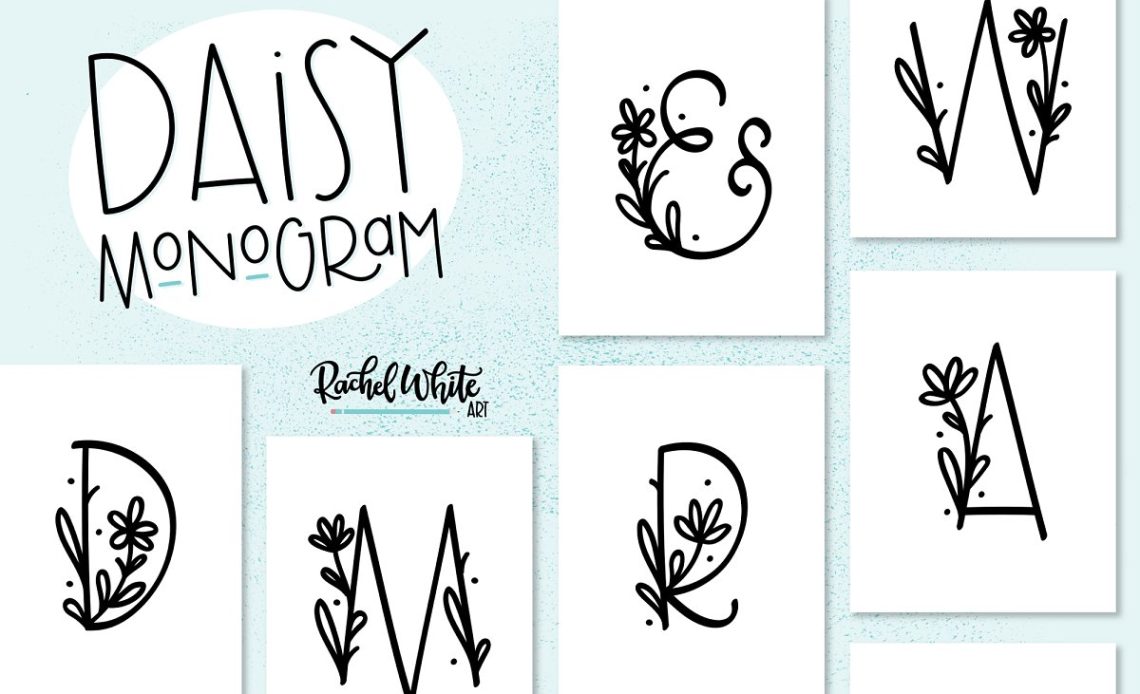
Introducing the captivating Daisy Monogram Font, a delightful addition to your font collection! Created by the talented Rachel White, this font family is designed to elevate your designs with its charming and whimsical style.
Inspired by the beloved Daisies illustration set, Rachel poured her heart into crafting this adorable floral monogram font. Every letter is adorned with a beautiful daisy and a variety of leaves, creating a visually stunning and eye-catching typography experience.
Whether you use the letters together or individually, the Daisy Monogram Font offers endless creative possibilities. Express your unique style and personality by incorporating this font into your projects.
But that's not all! This incredible font package includes not just 26 letters, but also 4 ampersands, giving you plenty of options to play with. Customize your designs with the perfect ampersand and add a touch of elegance and sophistication.
Perfect for a quirky summer wedding invitation or adding a personal touch to your belongings, the Daisy Monogram Font is the ultimate tool for expressing your individuality. Immerse yourself in the beauty of nature with its floral elements, making every design project a work of art.
Unlock your creativity and let the Daisy Monogram Font transform your designs into captivating masterpieces. Stand out from the crowd and make a lasting impression with this unique and versatile font.